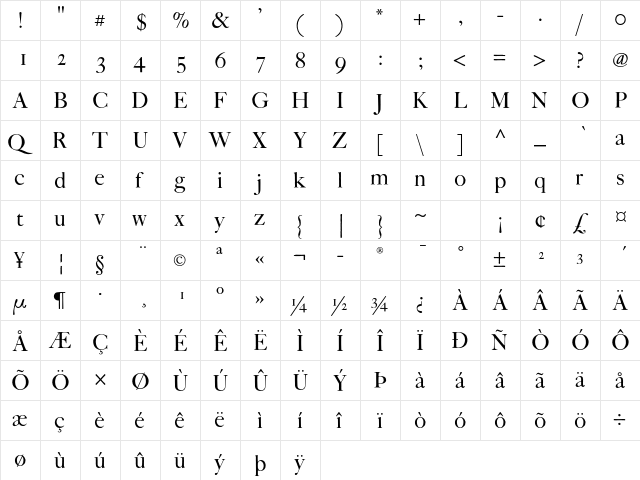
FCaslon Fortytwo ITC Std Regular Font Preview
FCaslon Fortytwo ITC Std Regular
| Designer | Justin Howes |
Design Context for FCaslon Fortytwo ITC Std Typeface
FCaslon Fortytwo ITC Std is a composed and adaptable typeface that performs quietly and consistently across a wide range of design contexts.